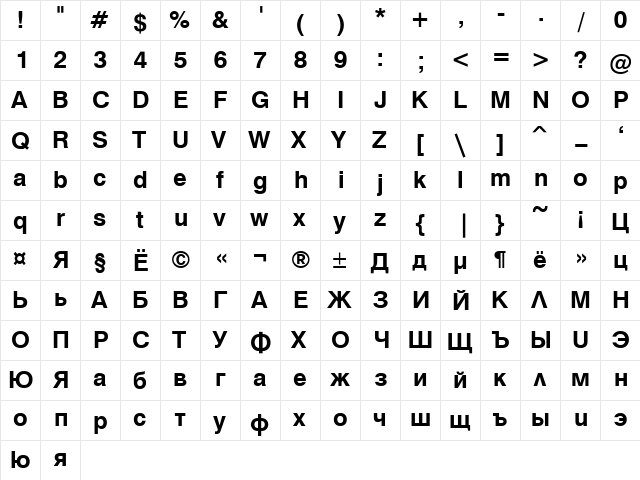
Hebar 02 Bold
Design Context for Hebar 02 Typeface
Hebar 02 offers clean, dependable letterforms without strong stylistic allegiance, making it a practical choice for designers who need flexibility. Its bold stroke weight gives it real presence on the page.